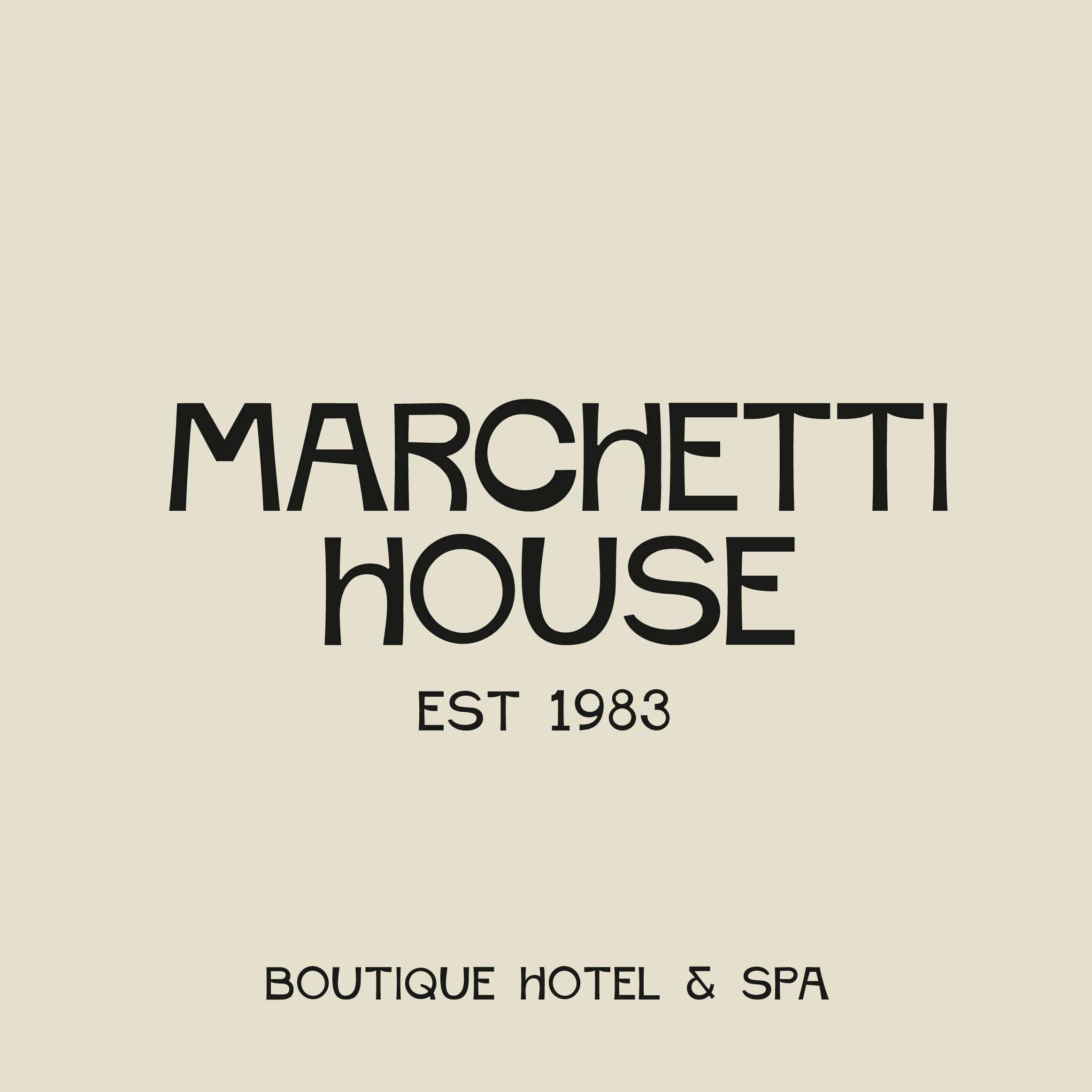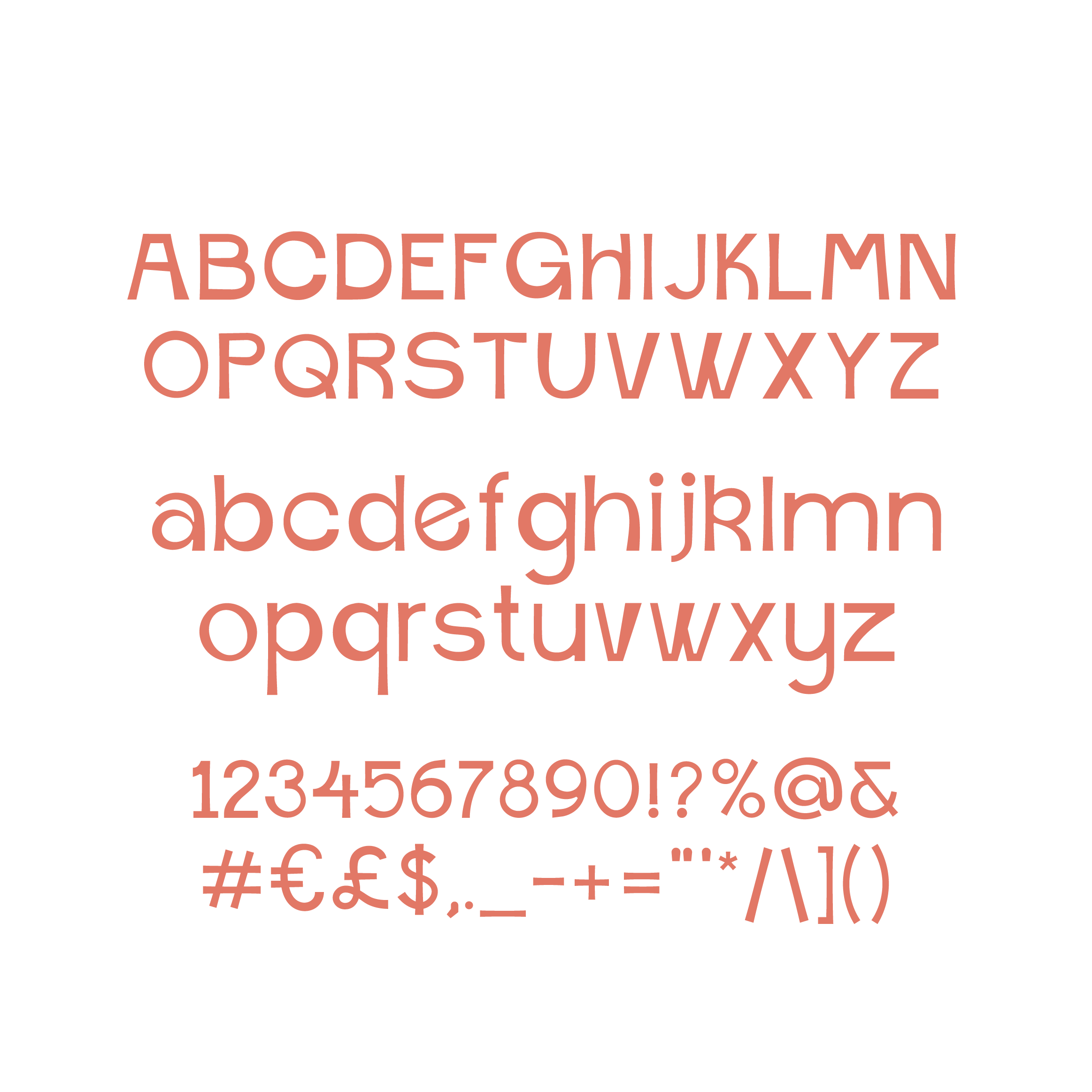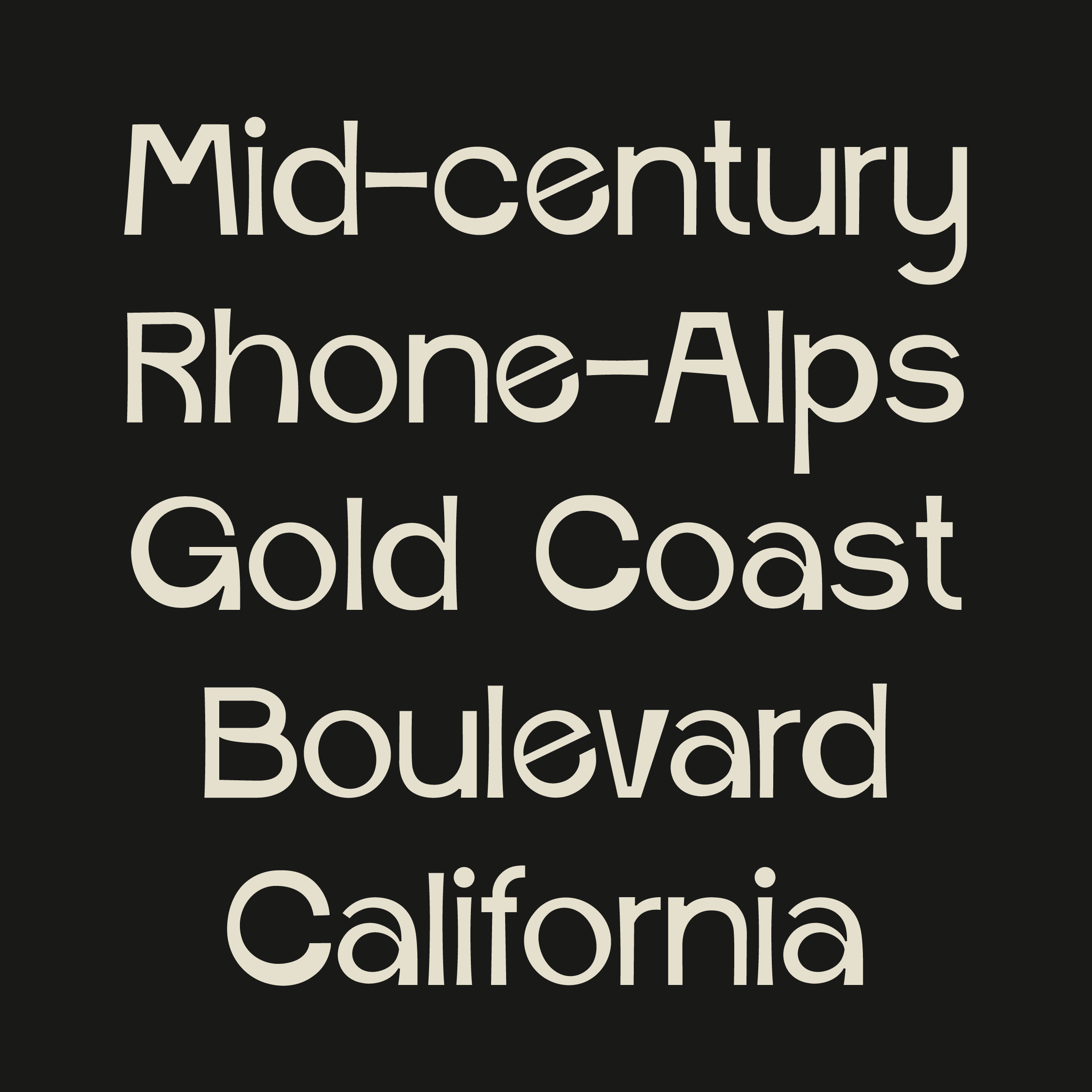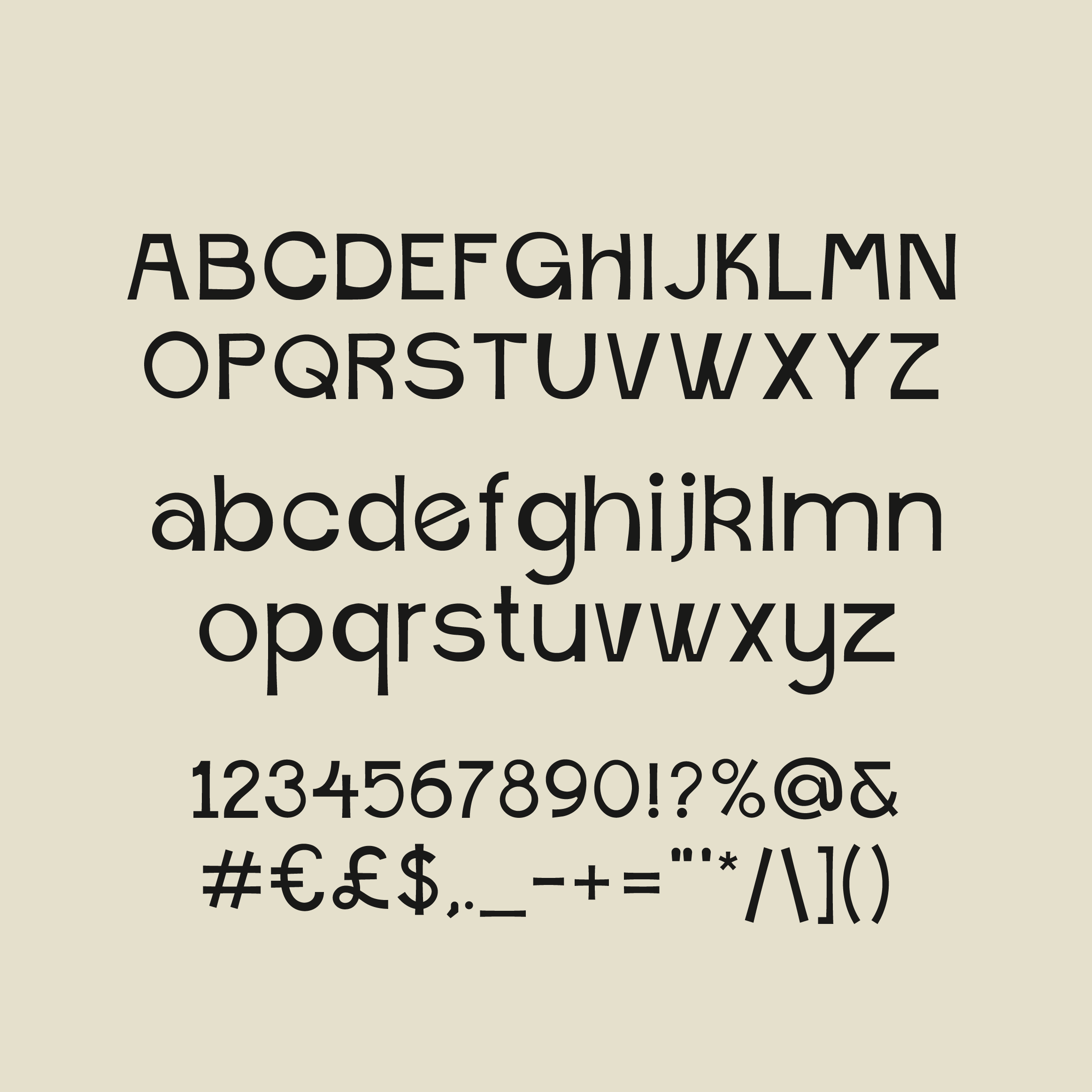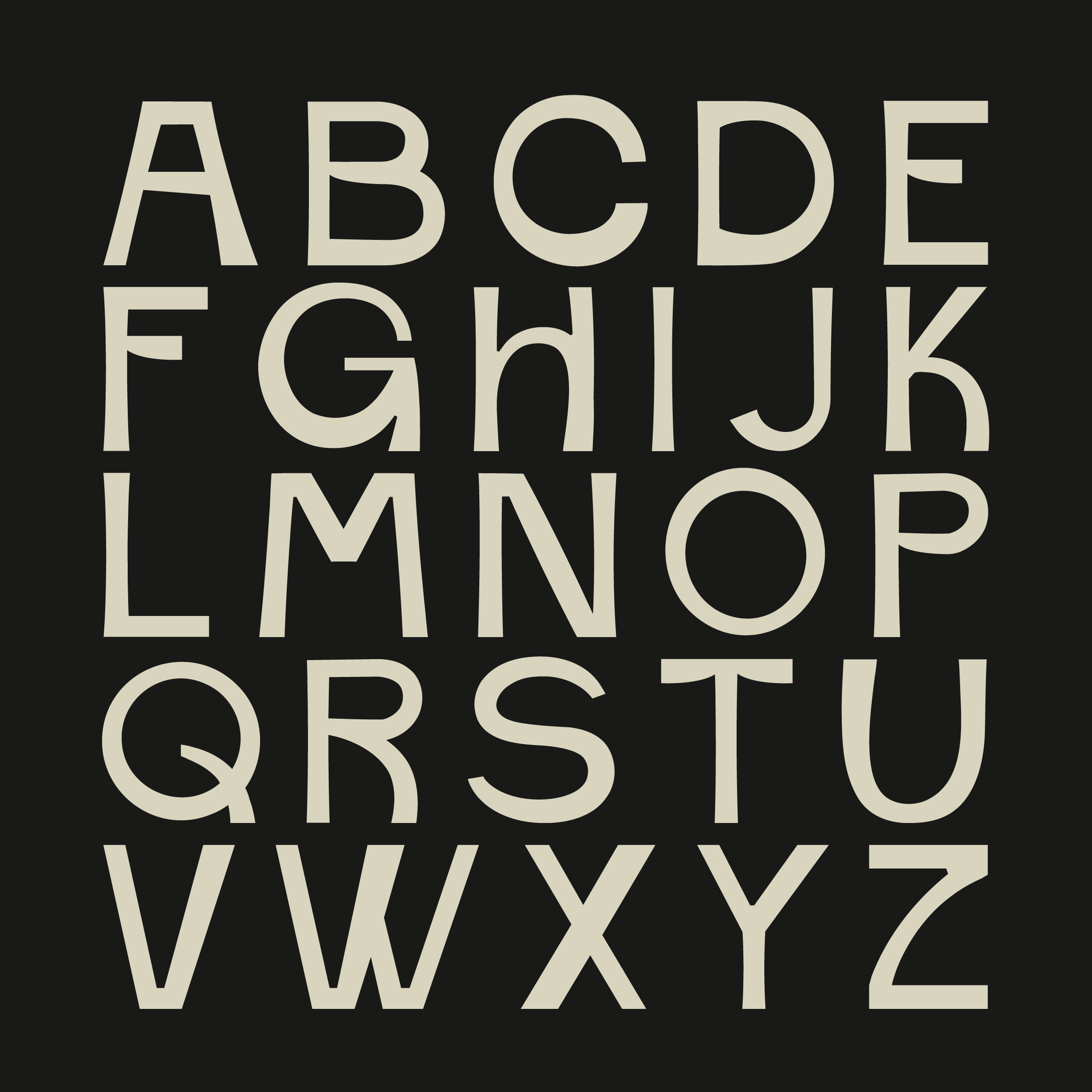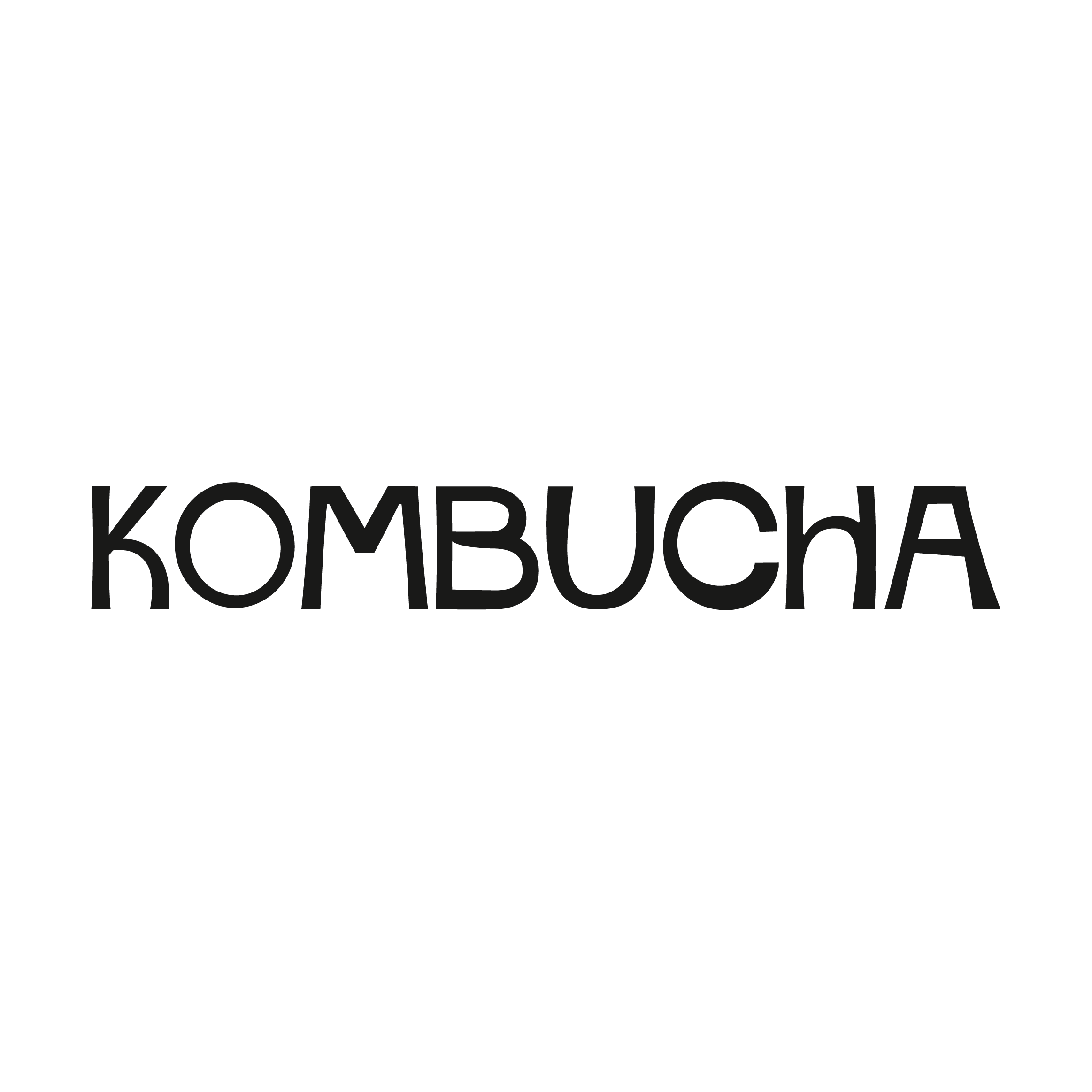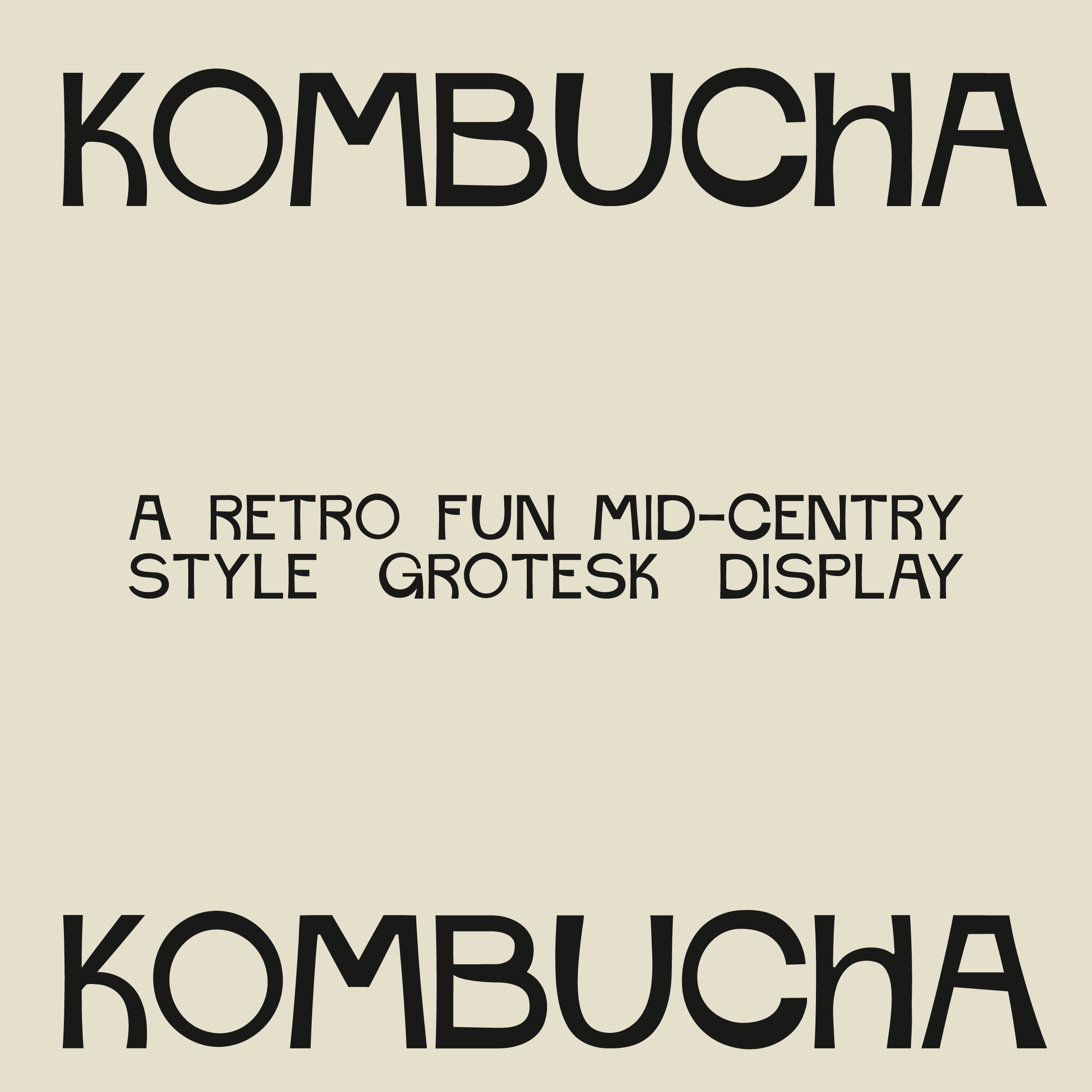
Kombucha
Kombucha is a bold, geometric sans with mid-century and art deco DNA — rounded terminals, circular bones, and just enough retro quirk to stand apart from the usual free-font lineup. It brings warmth and personality to premium branding: think wine labels, food and drink packaging, hotel signage, and menu design. A distinctive alternative for designers and business owners who want their brand to feel considered, not templated.
Both Upper and lowercase, numbers and most punctuation. Check the images for full glyph set.